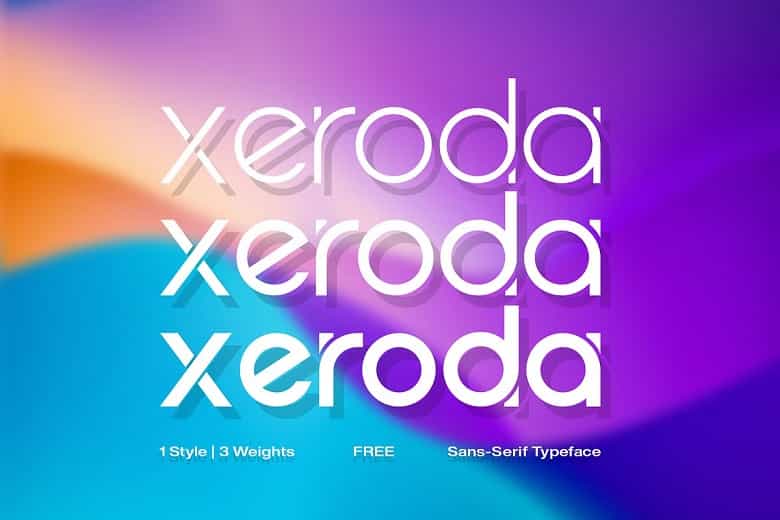
Xeroda is a new modern and versatile sans serif font which is a perfect combination of the modern designs with the classical styling. This font is intended for use in commercial and non-commercial designs and projects with the aim to grab the viewer’s attention. Xeroda-Regular font style is well-proportioned and the details put into the design of each letter are outstanding.